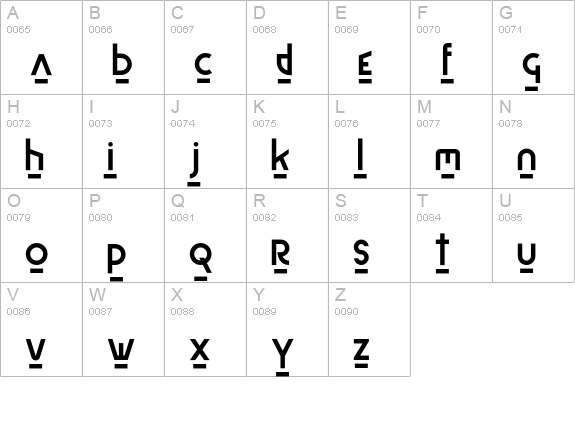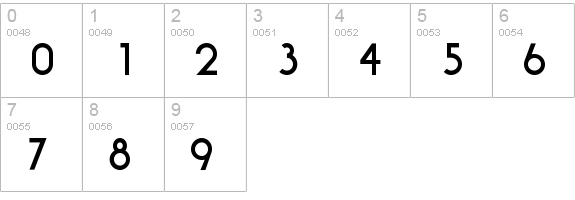
P22Bayer-Fonetik is a stunning font that effortlessly combines elegance with simplicity. With its clean lines and graceful curves, this font is perfect for a wide range of design projects, from logo designs to branding materials, invitations, and more. What sets P22Bayer-Fonetik apart from other fonts is its unique ability to convey a sense of sophistication and professionalism, while still remaining approachable and friendly. Whether you're aiming for a modern and sleek look or a classic and timeless aesthetic, this font has got you covered. One of the best things about P22Bayer-Fonetik is that it is free. Yes, you read that right – this incredible font is freely available to download at FontsMarket.com. This means that you can easily access and use this font in your projects without any restrictions or limitations. Not only is P22Bayer-Fonetik aesthetically pleasing, but it is also highly versatile. It comes with a wide range of weights and styles, allowing you to experiment and find the perfect fit for your specific design needs. Whether you're looking for a bold and impactful headline or a subtle and understated body text, P22Bayer-Fonetik has got it all. In addition to its visual appeal, P22Bayer-Fonetik also boasts exceptional legibility and readability. This makes it an excellent choice for both print and digital designs, ensuring that your message is effectively communicated to your audience. So why wait? Take advantage of the opportunity to download P22Bayer-Fonetik for free at FontsMarket.com and elevate your designs to a whole new level. With its stunning design, versatility, and accessibility, this font is truly a must-have for any designer or creative individual.